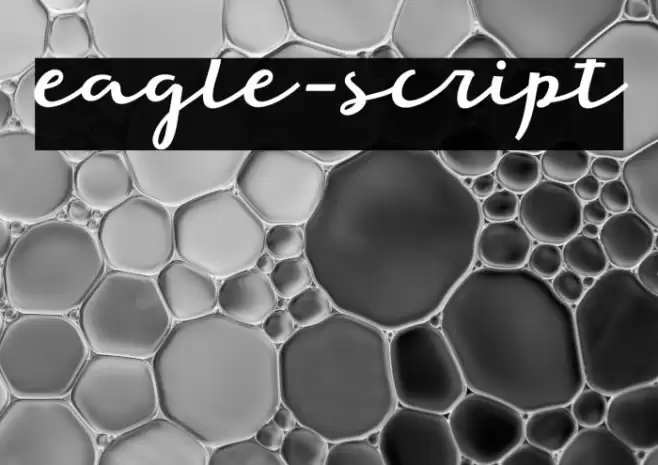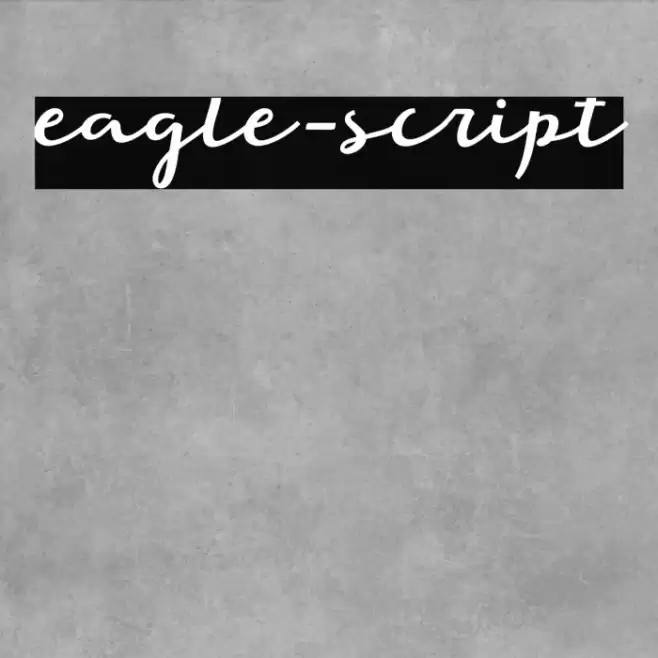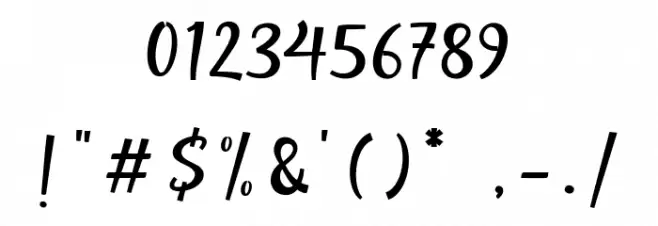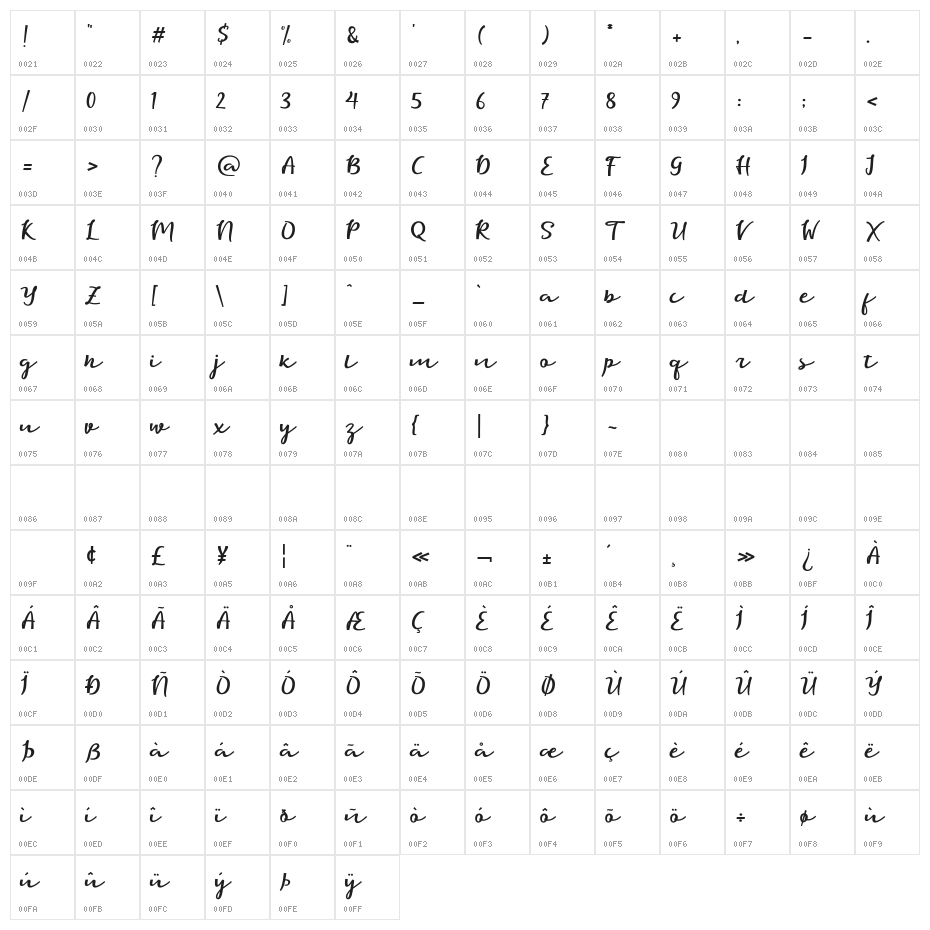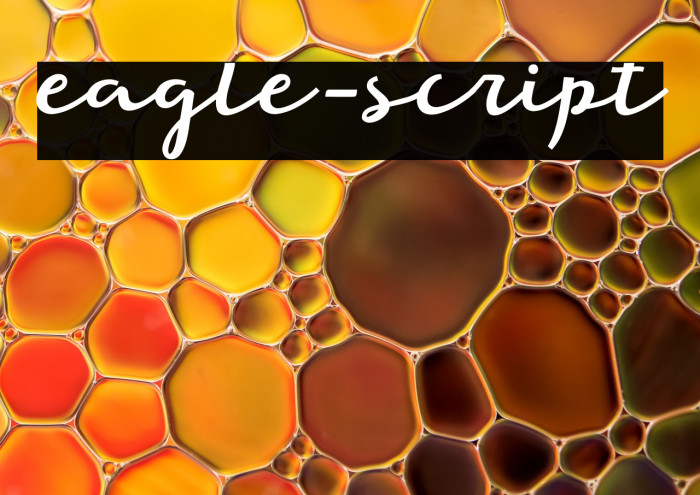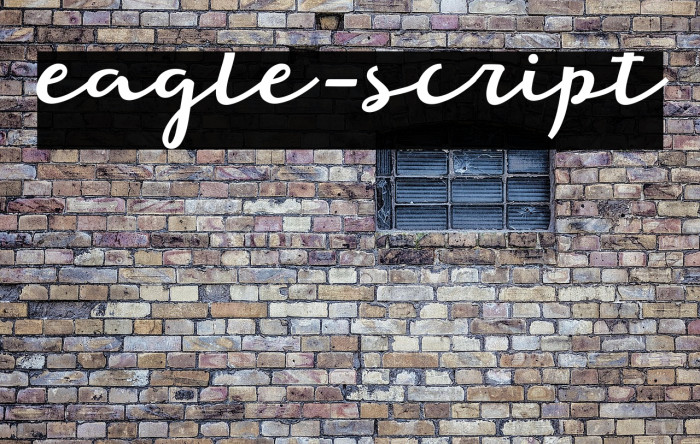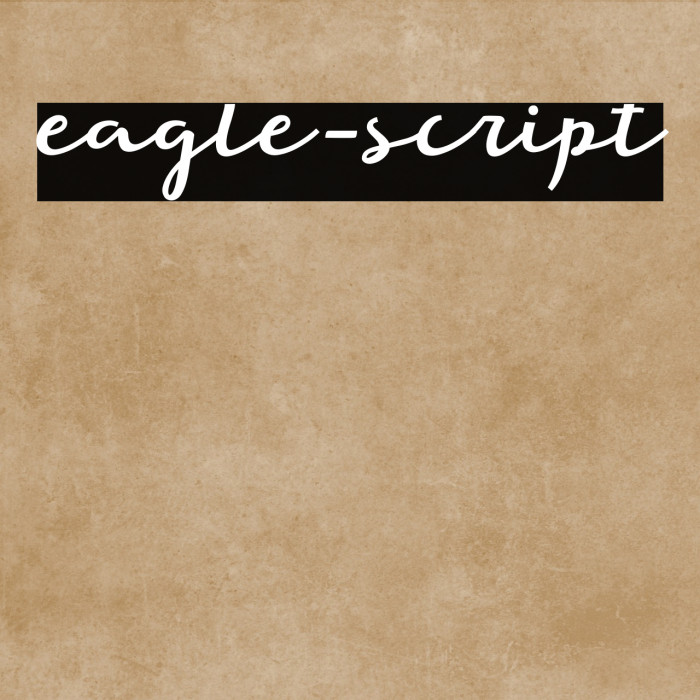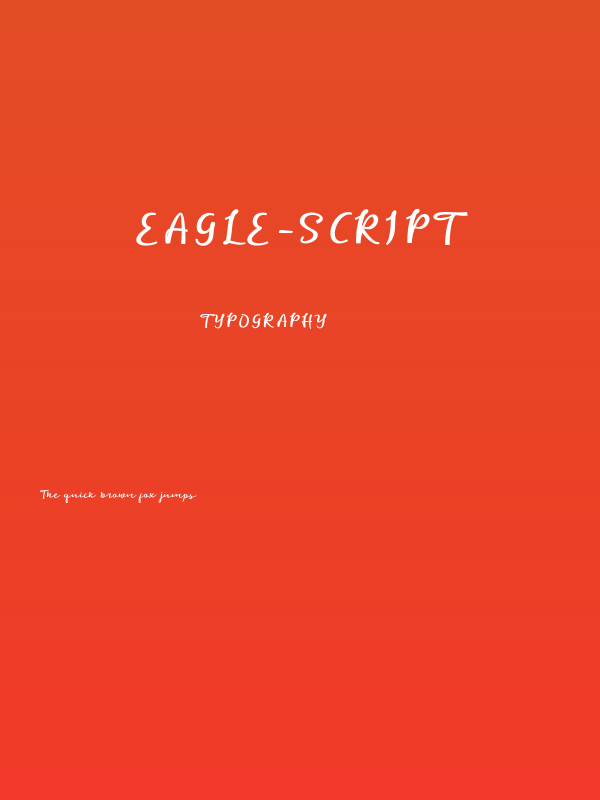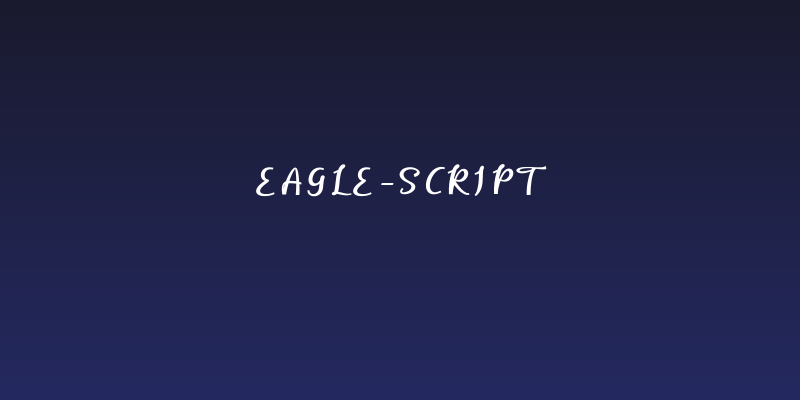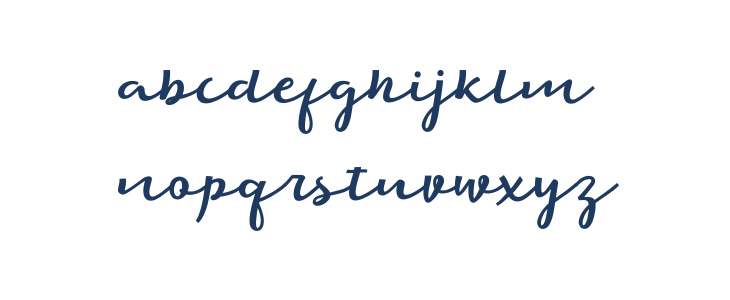
eagle-script Font
eagle-script Description
This font exudes a lively and dynamic script style, characterized by its fluid and connected letterforms. The uppercase letters maintain a consistent height with gentle curves, while the lowercase letters exhibit a more pronounced slant, enhancing the cursive feel. The numerals are clear and distinct, aligning well with the overall script aesthetic. Special characters are thoughtfully integrated, maintaining the font's cohesive look. This font's playful yet elegant nature makes it versatile for various creative applications.
A lively and dynamic script font with fluid, connected letterforms from Script fonts.
- Proposed Projects: Ideal for wedding invitations, greeting cards, branding projects, and social media graphics.
- Use Case: Logos, Invitations, Decorative text